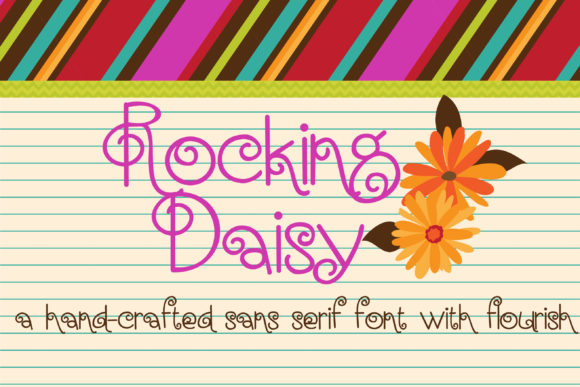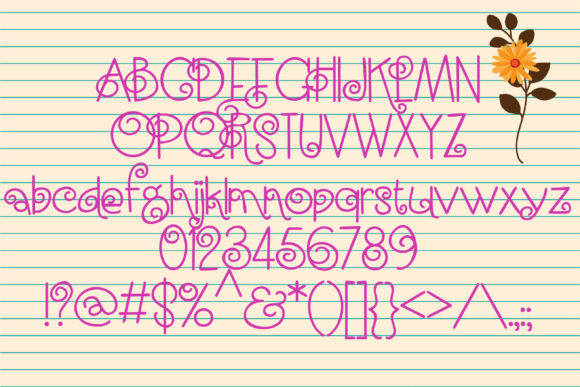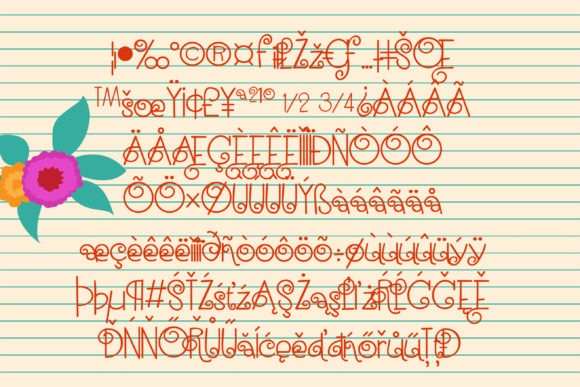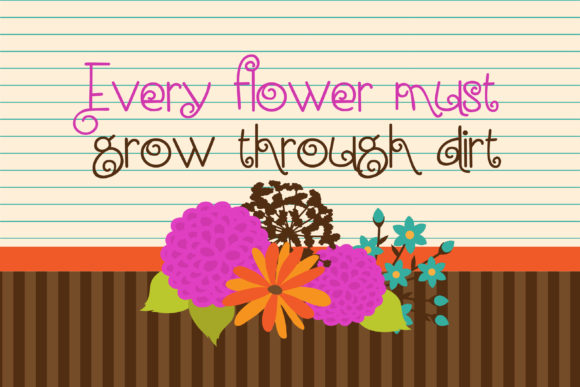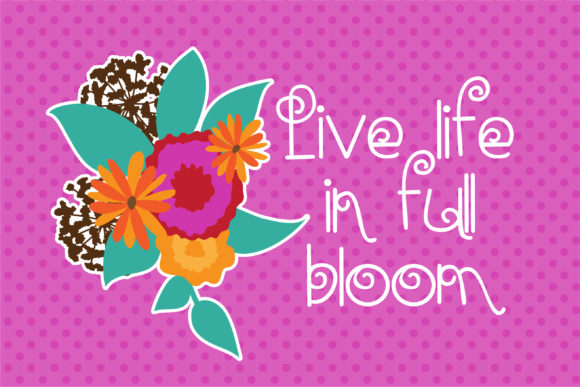
HomeScript FontsRocking Daisy Font Script Fonts Rocking Daisy Font FacebookXPinterestWhatsApp Rocking Daisy Font Poster 2 Rocking Daisy Font Poster 3 Rocking Daisy Font Poster 4 Rocking Daisy Font Poster 5 About Rocking Daisy Font This whimsical sans serif font is a curl-infused hand-written font. DOWNLOAD NOW People also explored Family Queen Destination Font Detinata Font Batriysh Font Ktochi Font My Friends Font Griggs Christmas Mystery Family Font Astria Font 286 0 TagsRocking Daisy Font Previous articleElf Craze FontNext articleExpect More Font LEAVE A REPLY Cancel reply Comment: Please enter your comment! Name:* Please enter your name here Email:* You have entered an incorrect email address! Please enter your email address here Website: Save my name, email, and website in this browser for the next time I comment. Personal Use Free Stigma Font Personal Use Free Read more about this font Ernesthuge Personal Use Free Read more about this font Christmas Diary Personal Use Free Read more about this font Fuixg Personal Use Free Read more about this font BLOG Free vs Paid Fonts: Why Investing in Premium Fonts Is Worth It Free vs Paid Fonts: Why Premium Fonts Are Worth It in 2025 The debate of free vs paid fonts continues in the design world. While... Top 7 Google Fonts Alternatives for Faster and Privacy-Friendly Web Design (2025) Where to Buy American Fonts Online in 2024 5 Fonts That Will Dominate Design Trends in 2026